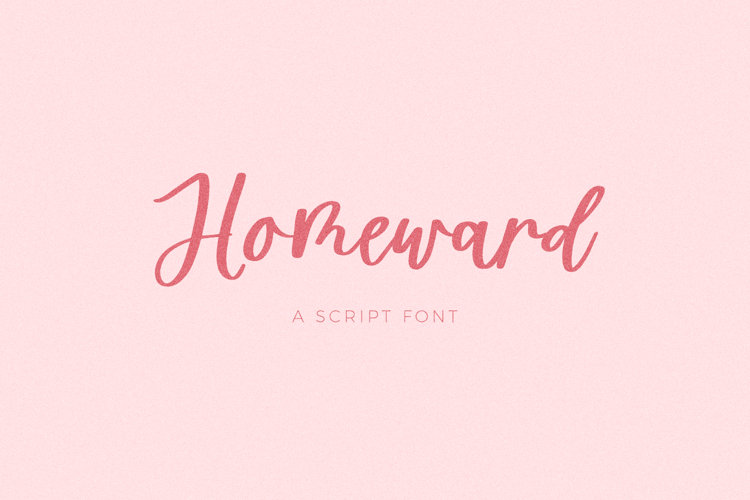
Homeward Script
Homeward Script is a simple modern calligraphy font with a little bit of bounce. This font is perfect for logos & branding, greeting cards, painted banners, digital planners, note-taking apps, Canva, Cricut projects, Silhouette projects, designing SVG files, laser cutting projects, & more.